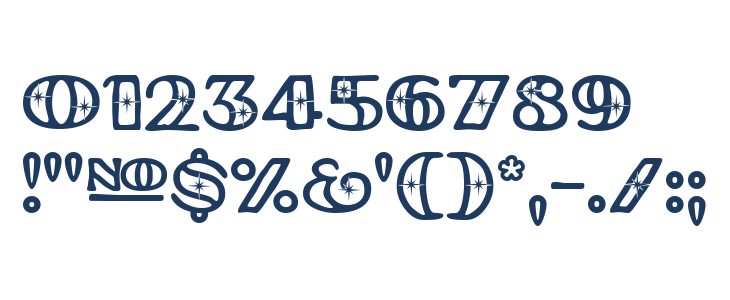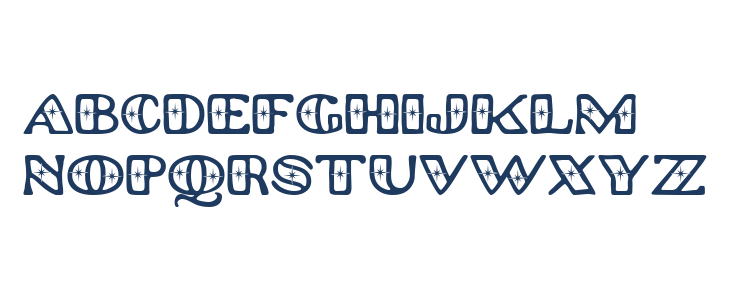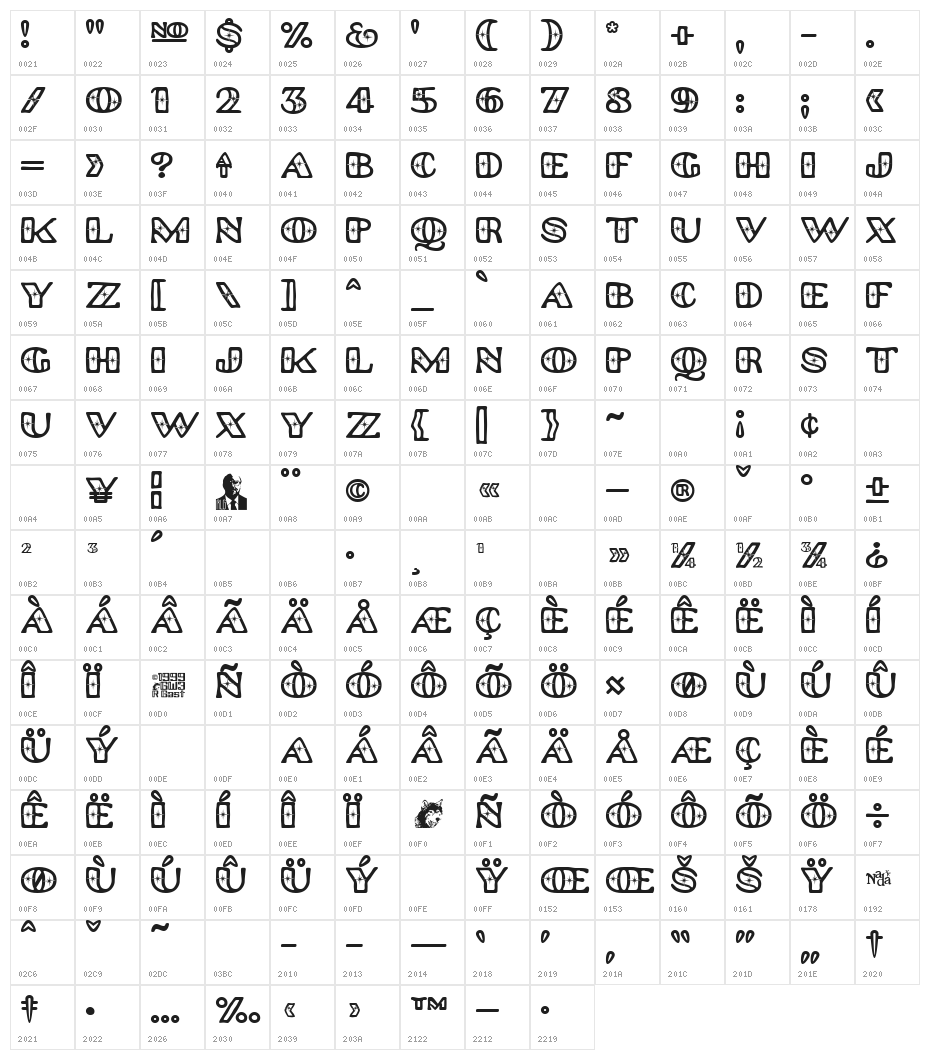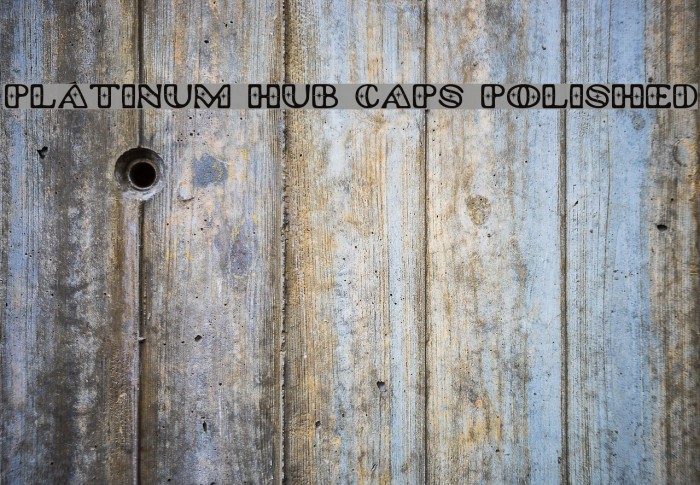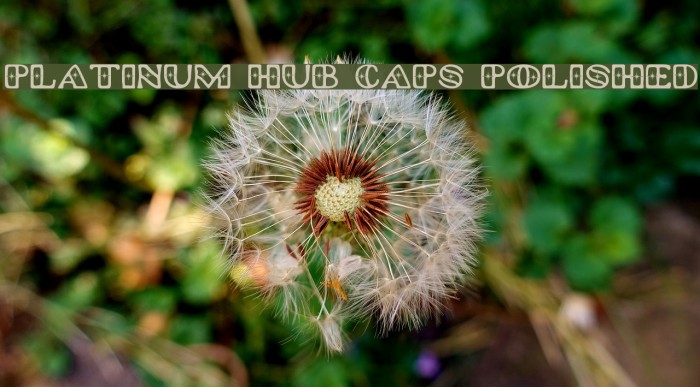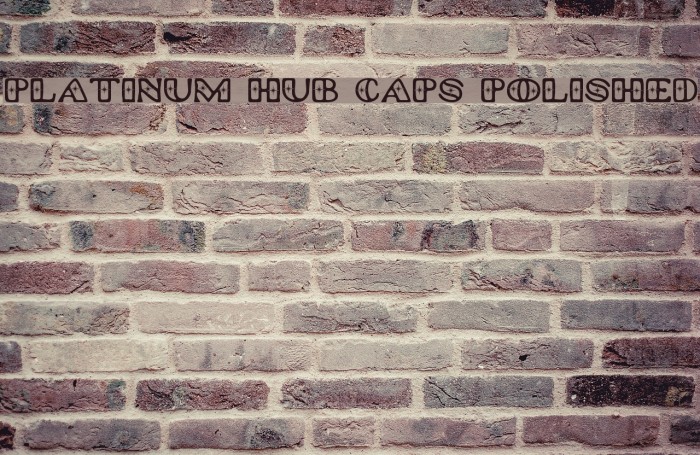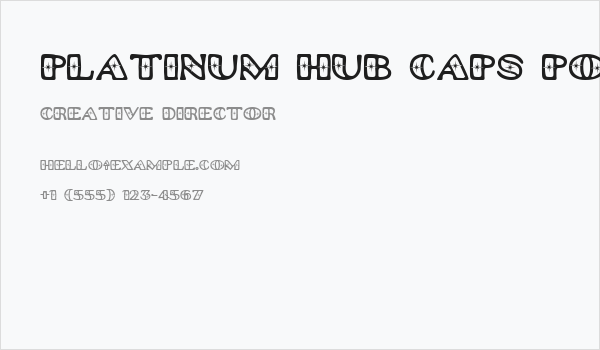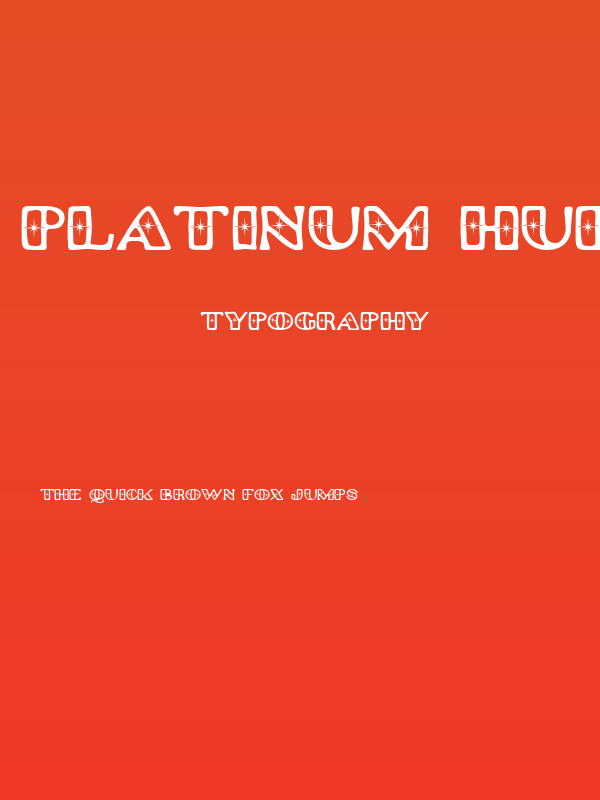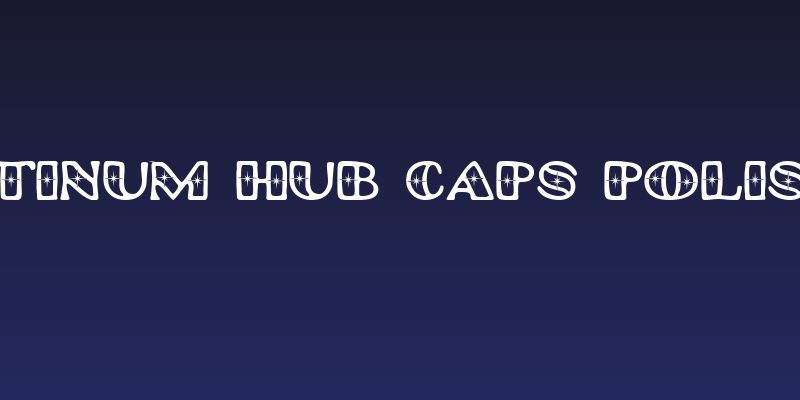
Platinum Hub Caps Polished Font
Platinum Hub Caps Polished Description
This font features a bold, decorative style with a unique star pattern embedded within each character. The letters are outlined with a thick black border, giving them a striking appearance. The uppercase and lowercase letters maintain a consistent design, with the star motif adding a playful and whimsical touch. Numbers and special characters are also included, following the same design principles. The overall look is eye-catching and suitable for creative projects that require a standout typeface.
| Proposed Projects | Ideal for party invitations, children's book covers, festive banners, and any project needing a playful and decorative typeface. |